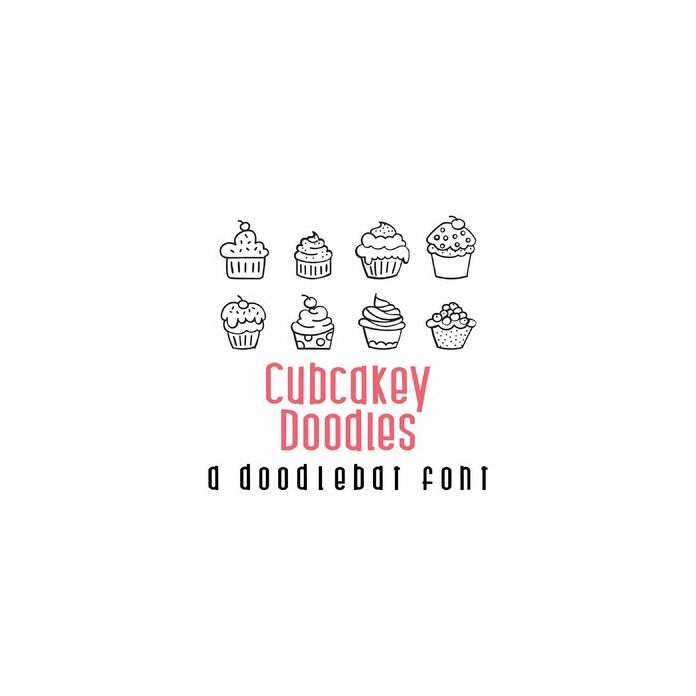
This fun doodlebat font features 26 adorable doodle style cupcakes. Perfect for cards, gifts, decor, crafts, scrap book pages, planner stickers and more!